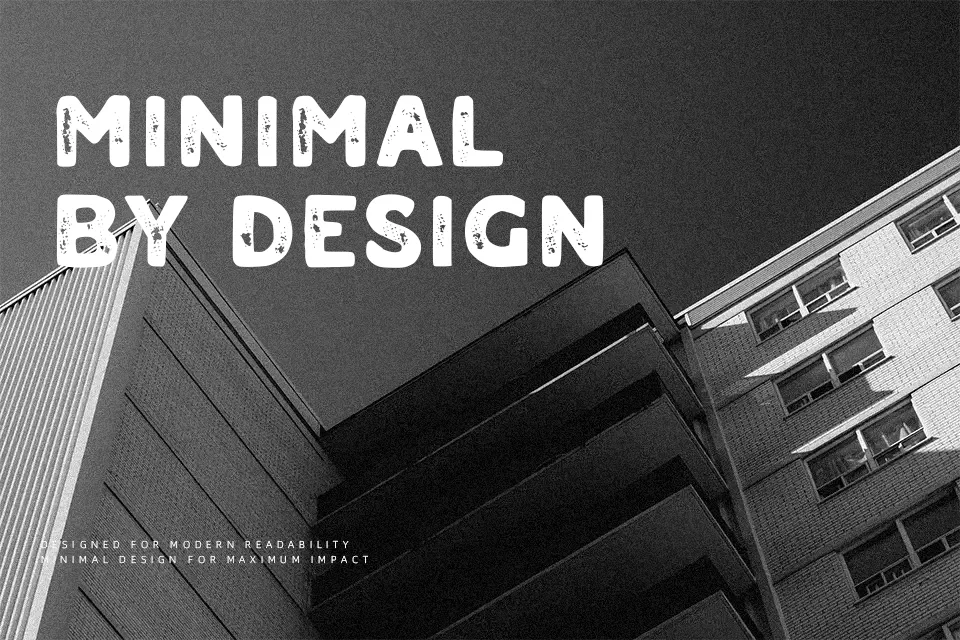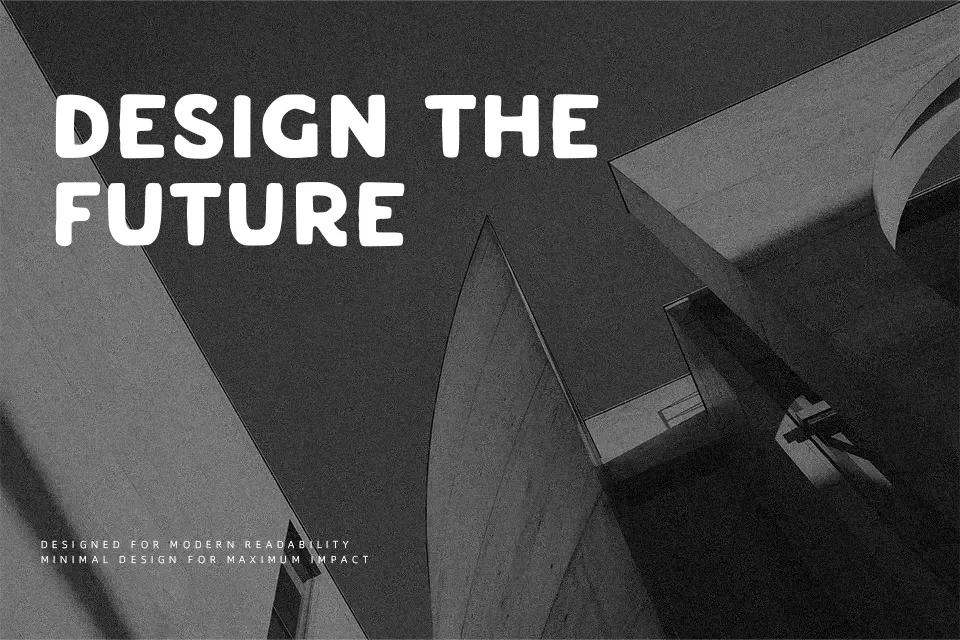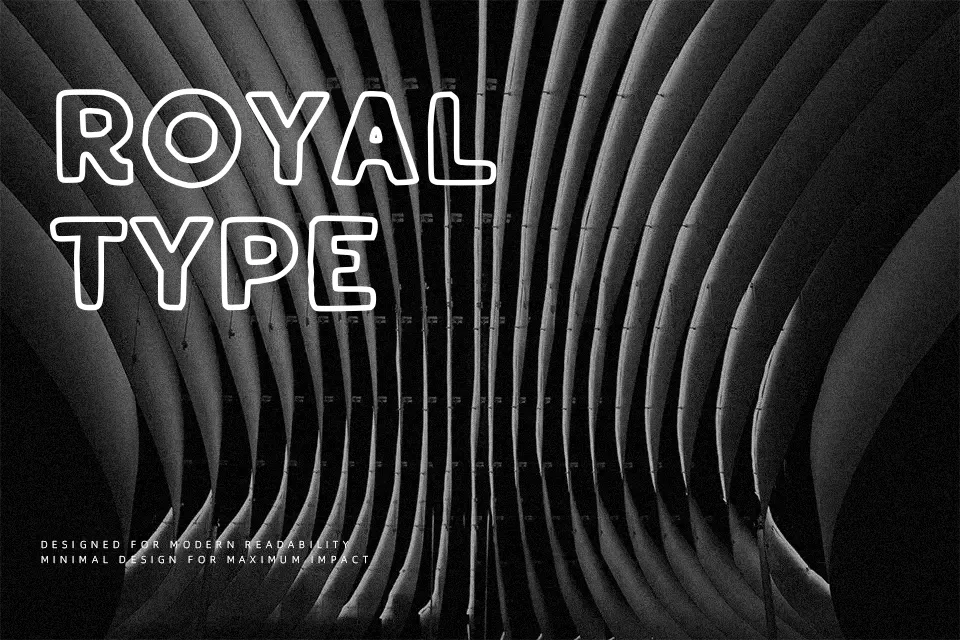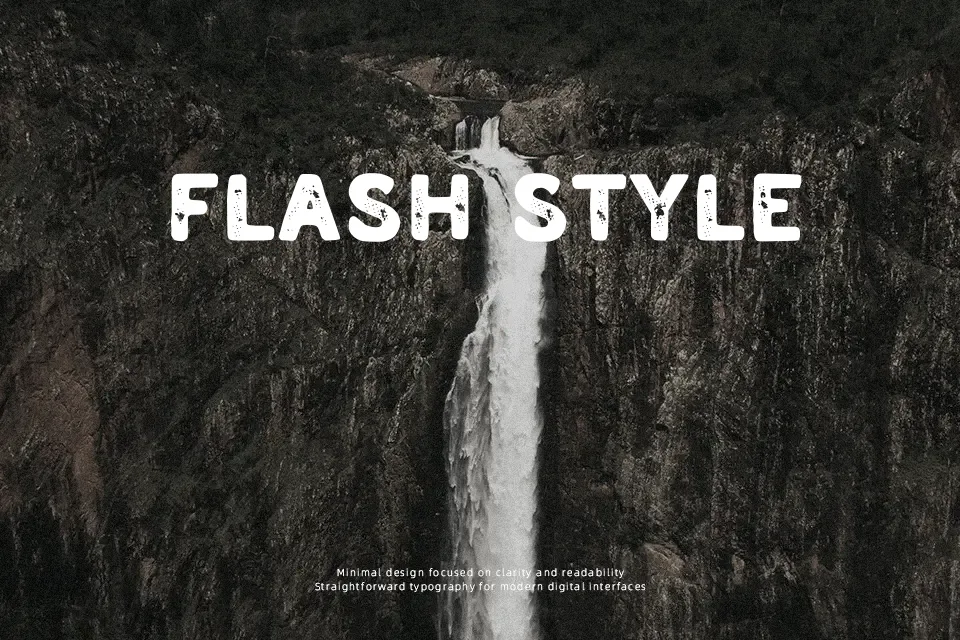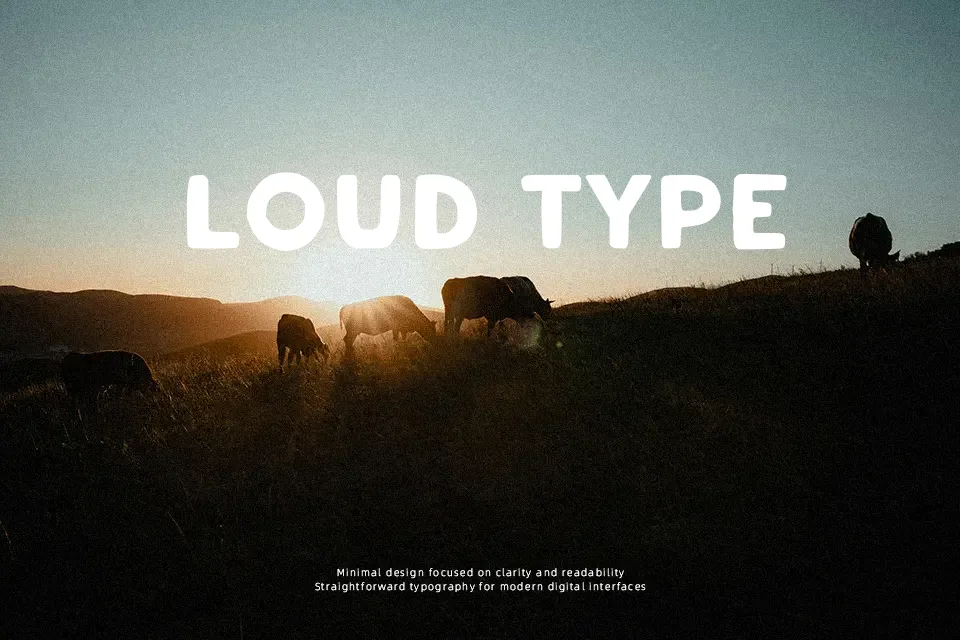
Aalon Font
Designed by RBCS Studio
Rough edges and deliberately eroded strokes define Aalon’s visual identity — it reads less like a typeface and more like hand-painted signage from a mid-century diner. The all-caps structure gives it a strong, assertive presence, while its organic irregularities prevent it from feeling mechanical. Four variants (standard, Rough, Line, and Line Rough) offer flexibility without drifting into different territory altogether. It’s well-suited to vintage event posters, retro packaging labels, and music merchandise where distressed aesthetics carry meaning. That said, the roughened texture starts to lose legibility at small sizes, and the demo version’s character set is limited to 74 glyphs — not enough for most professional projects without purchasing the full commercial license.
Best For:- Retro or vintage poster headlines
– Band merchandise and music event graphics
– Craft beer or food packaging labels
– Streetwear and apparel graphic prints
Not Ideal For:- Body text or long-form reading
– Corporate or professional business documents
– Designs requiring lowercase letterforms
– Small-size typesetting where texture becomes noise
Perfect for advertising, branding, and logo, with a bold and decorative style.